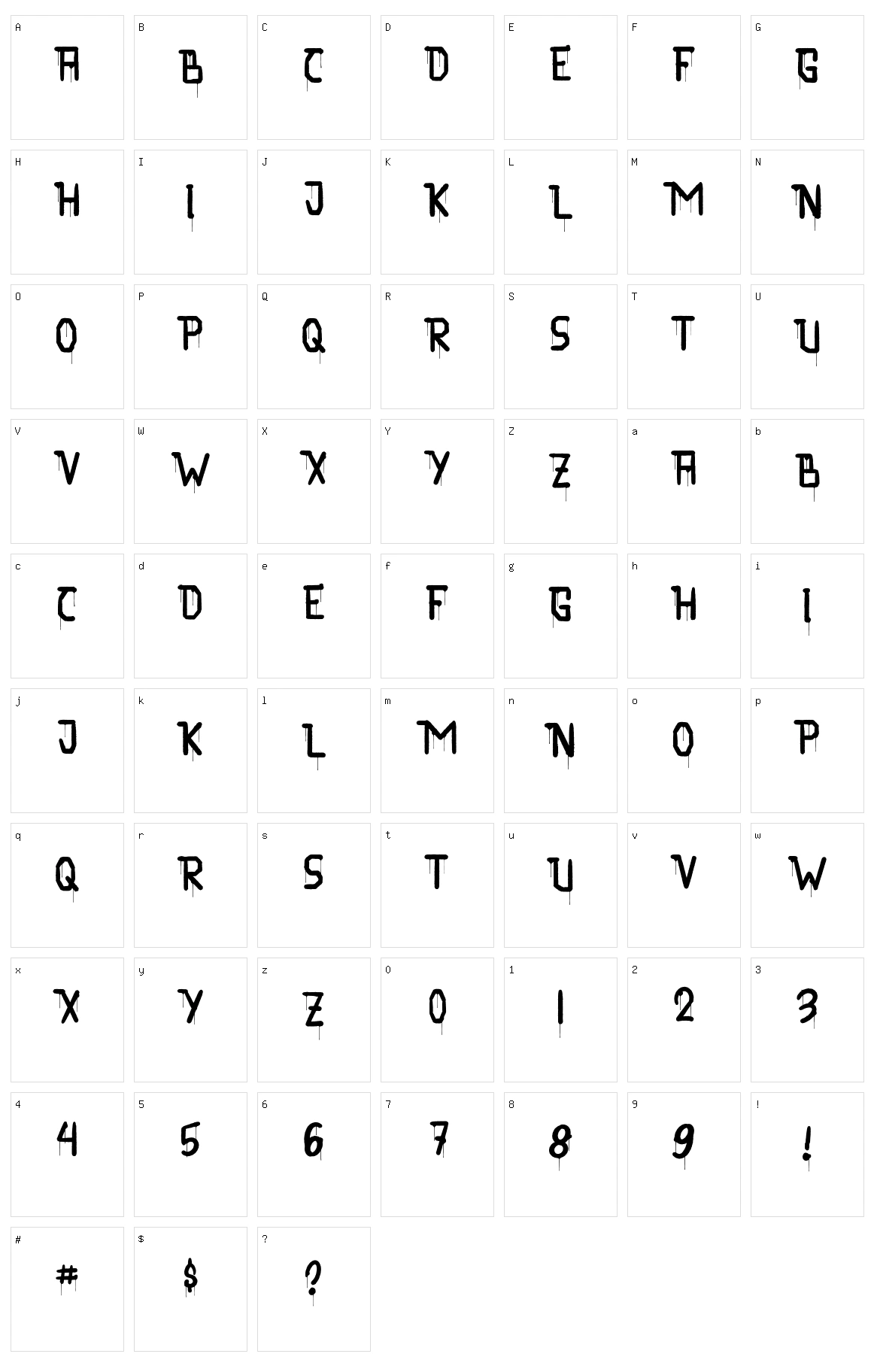
The free font Skull Attack is carefully designed by Tigadestd, showcasing a thoughtful balance of creativity and usability and falls under the Horror font style. When you download the ZIP file, it contains only 52.37 KB of font files, making it lightweight and quick to download. Please review the license details below to understand permitted usage and distribution rights. If license information is not available, we recommend using this font for personal projects only or contacting the author directly for commercial usage permissions.